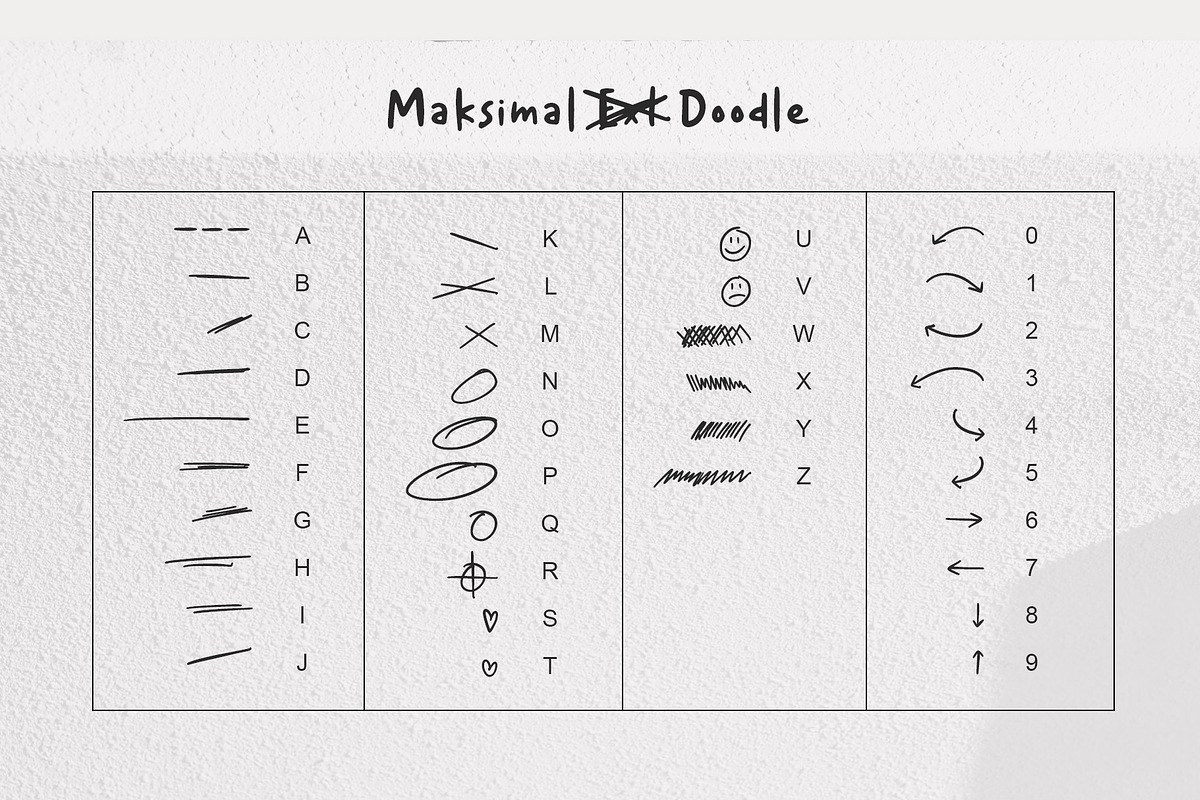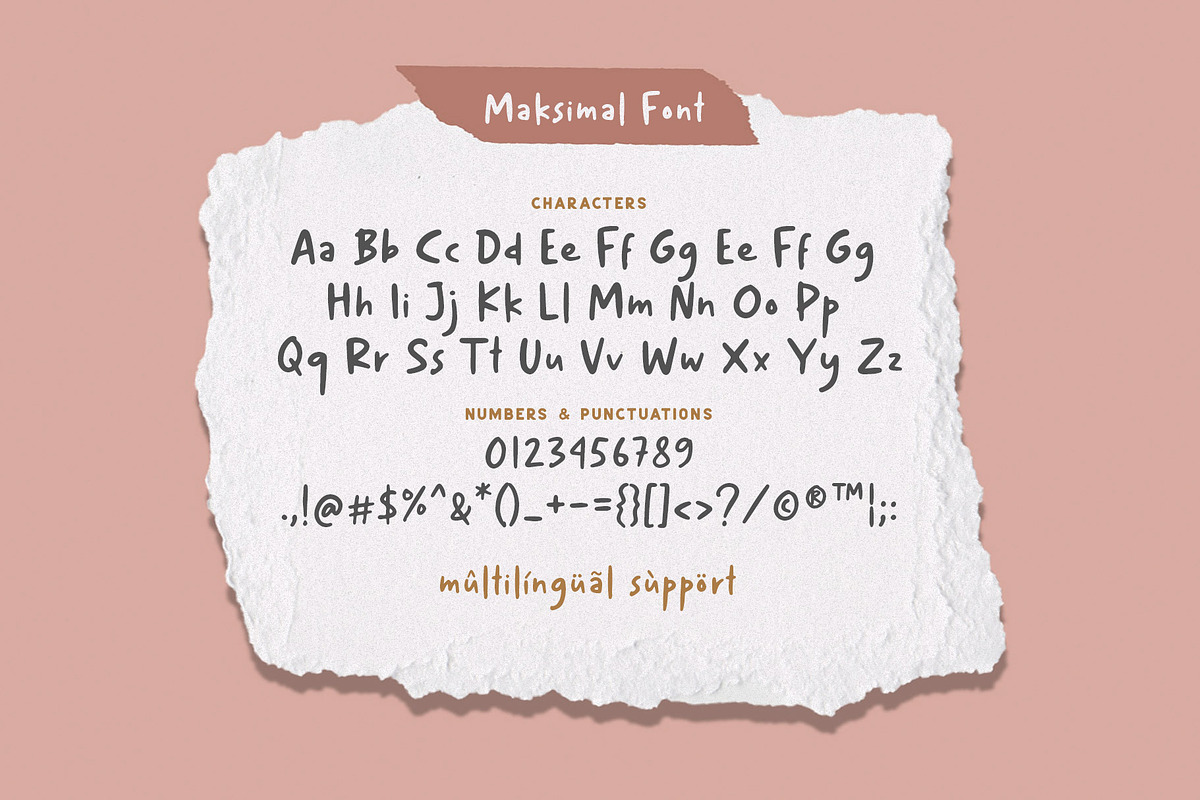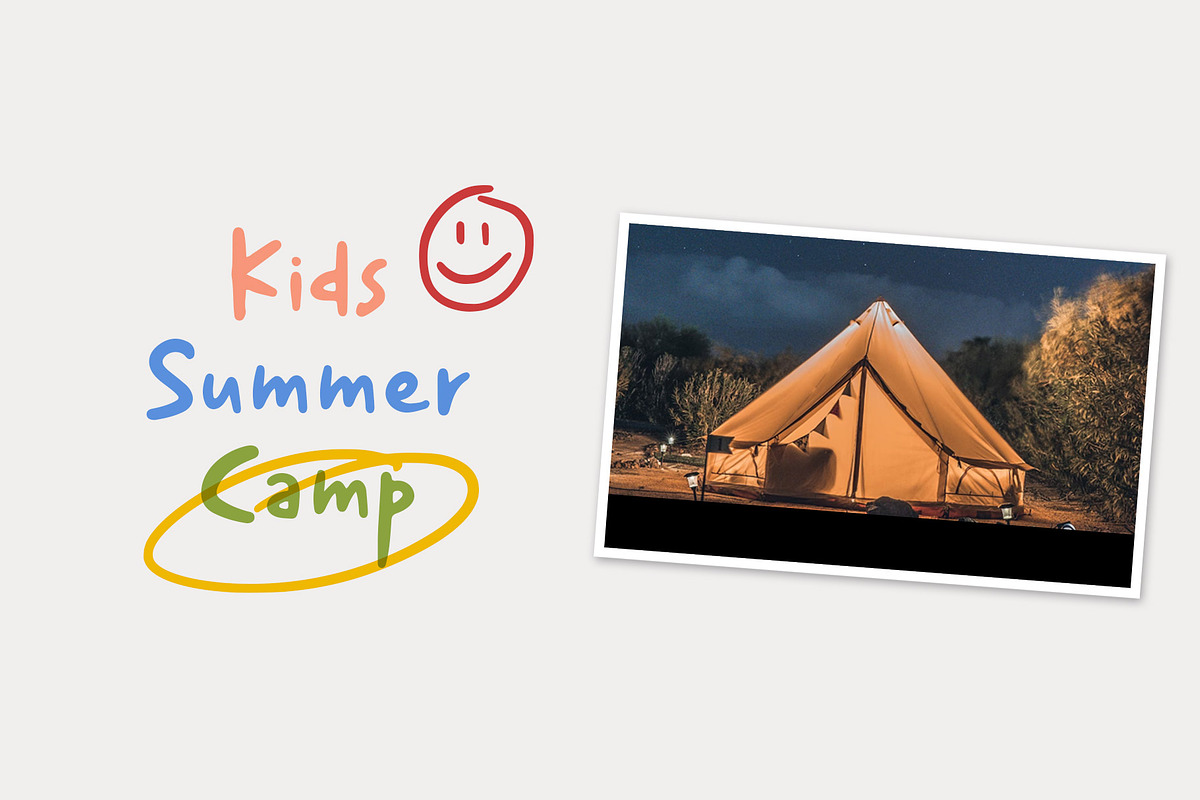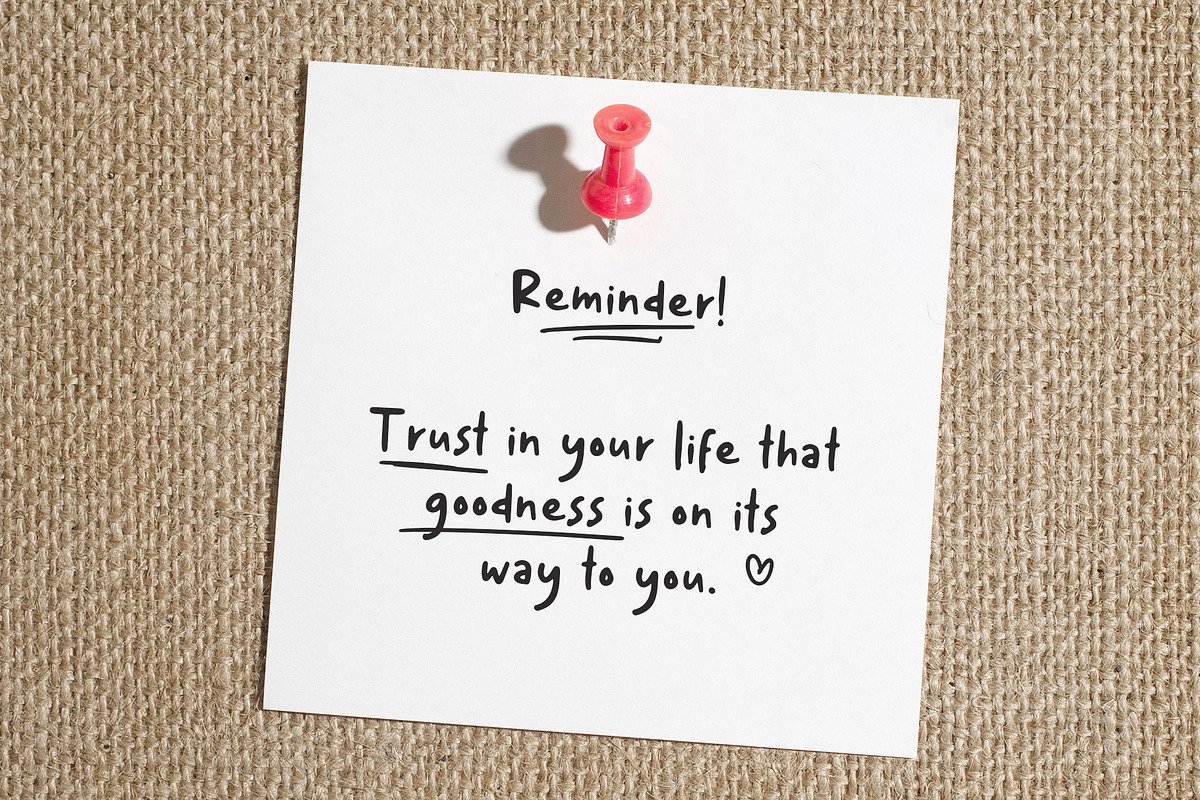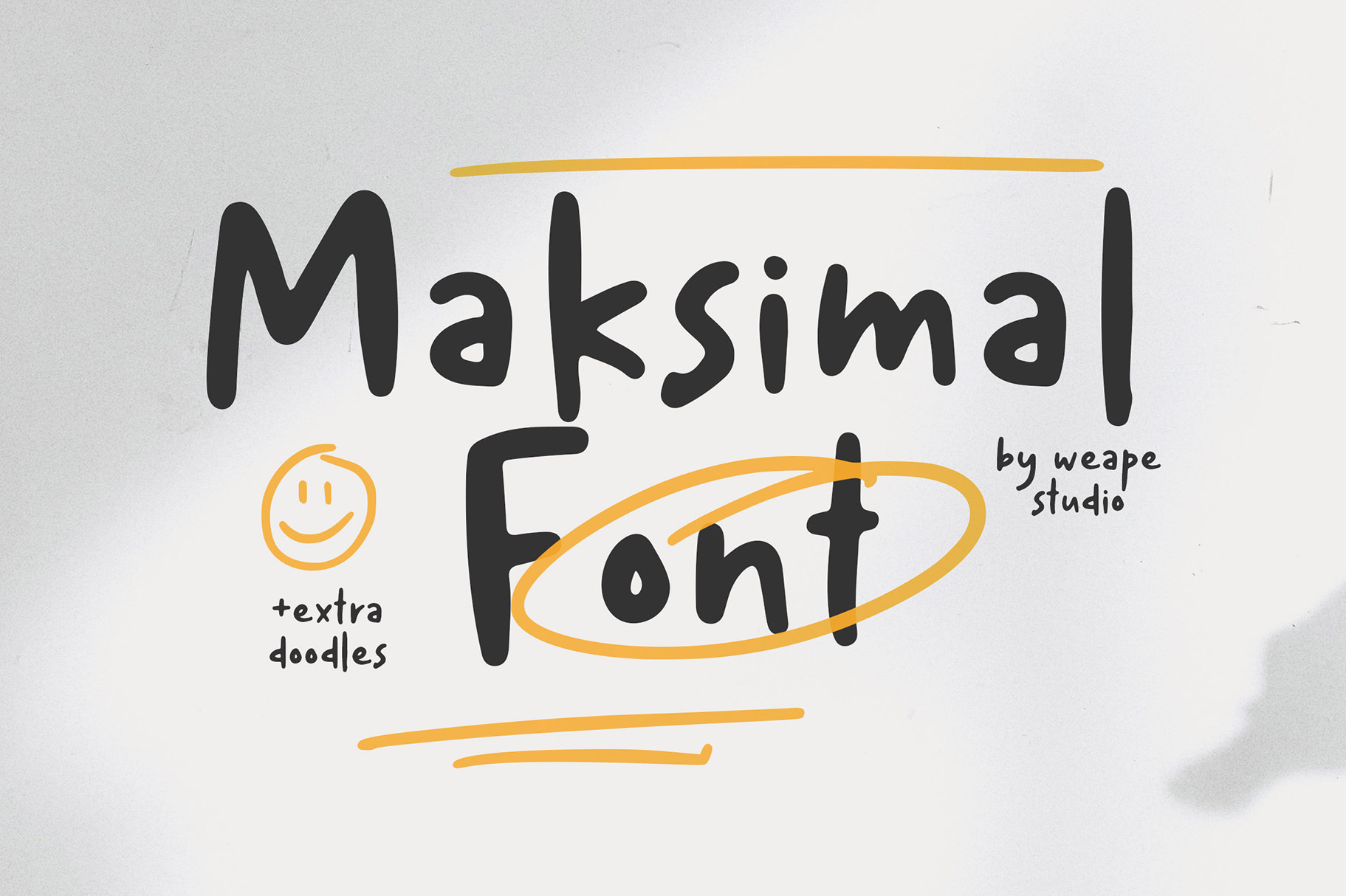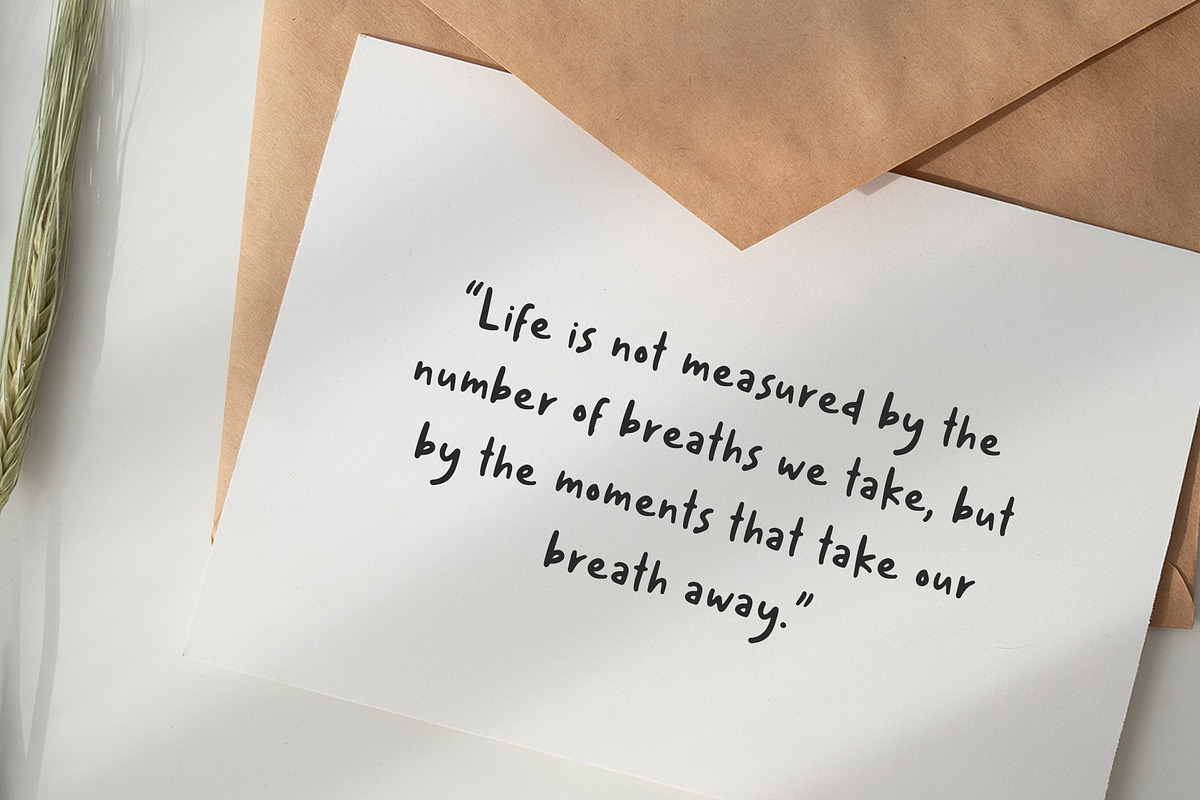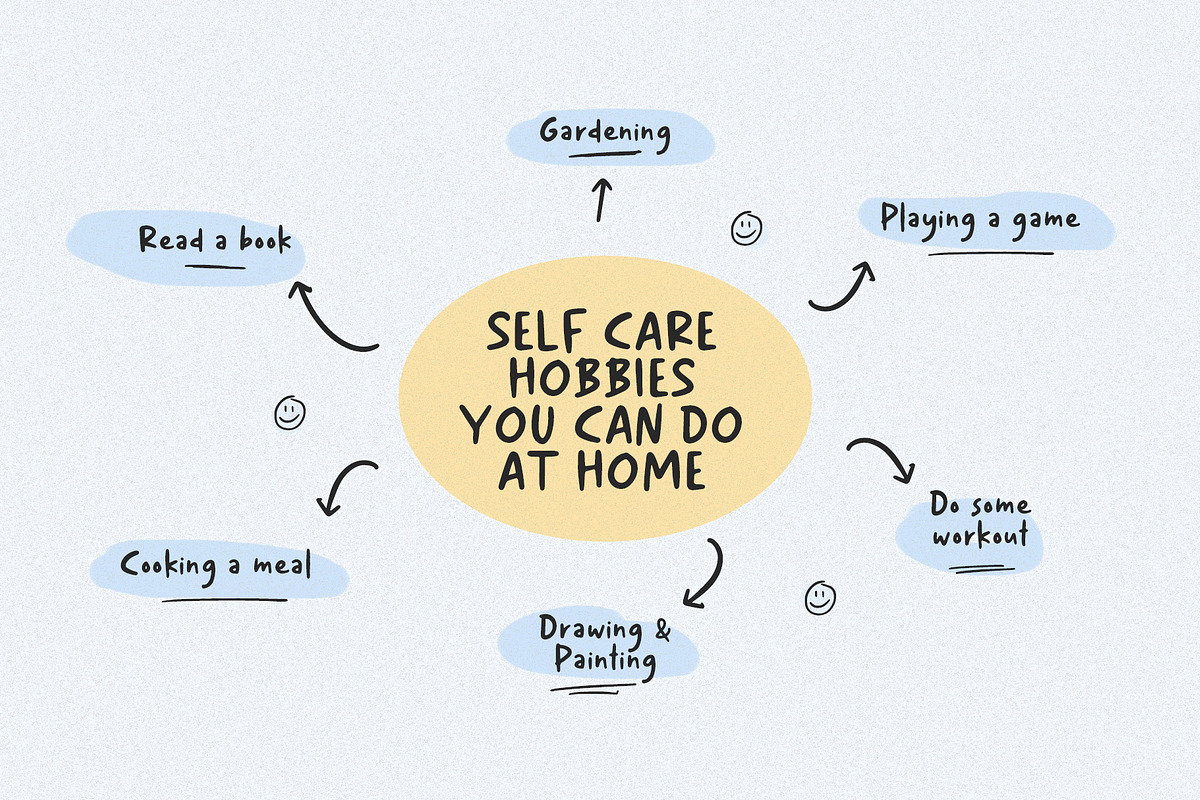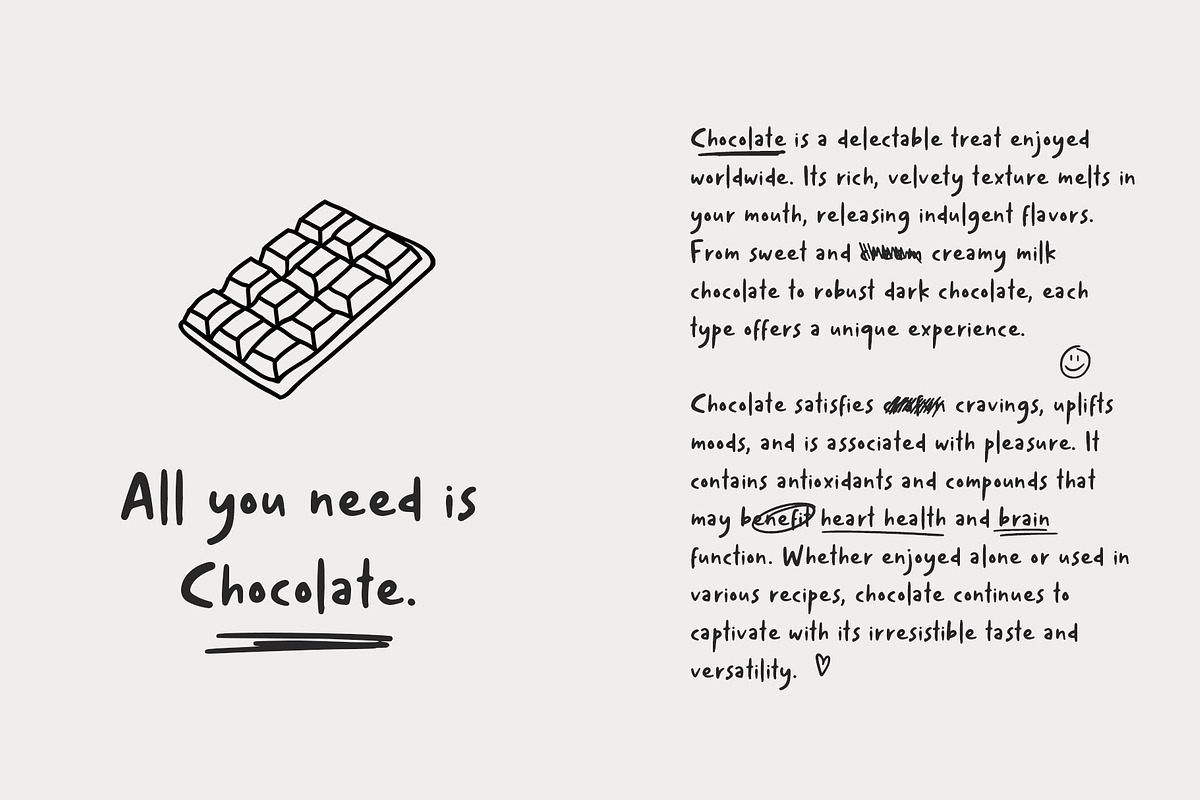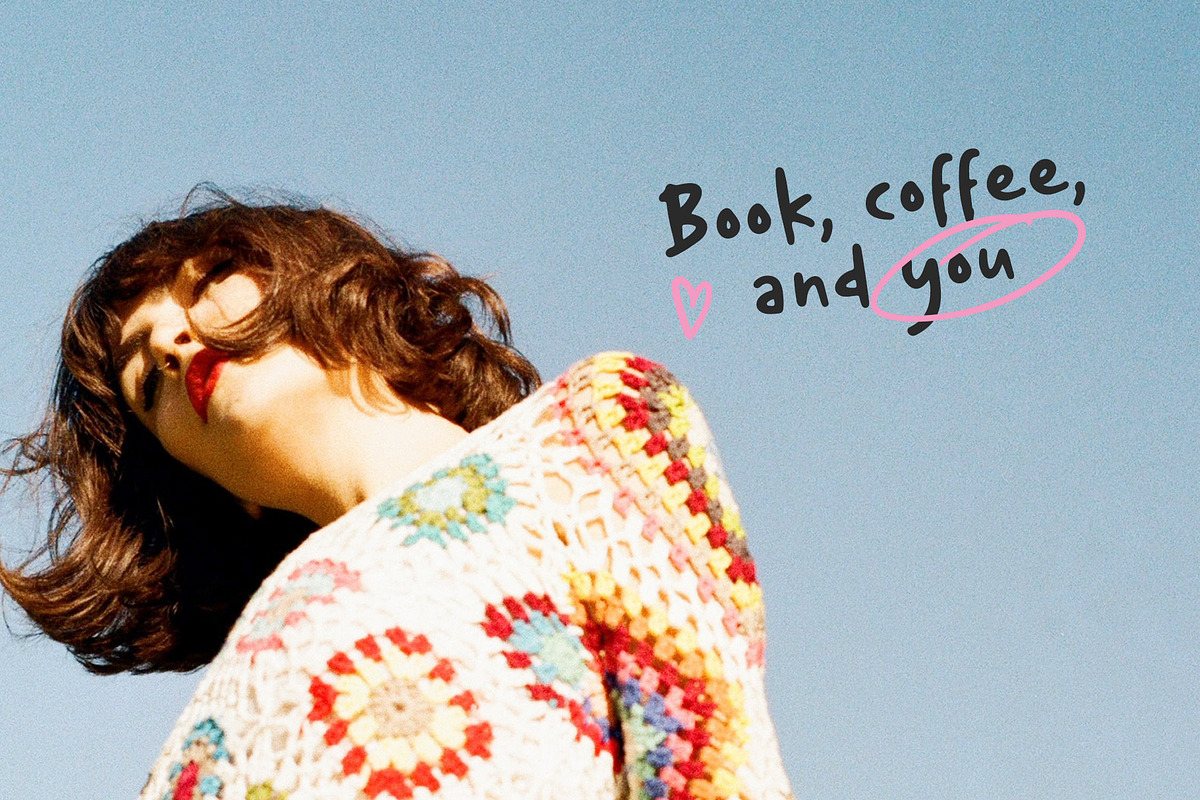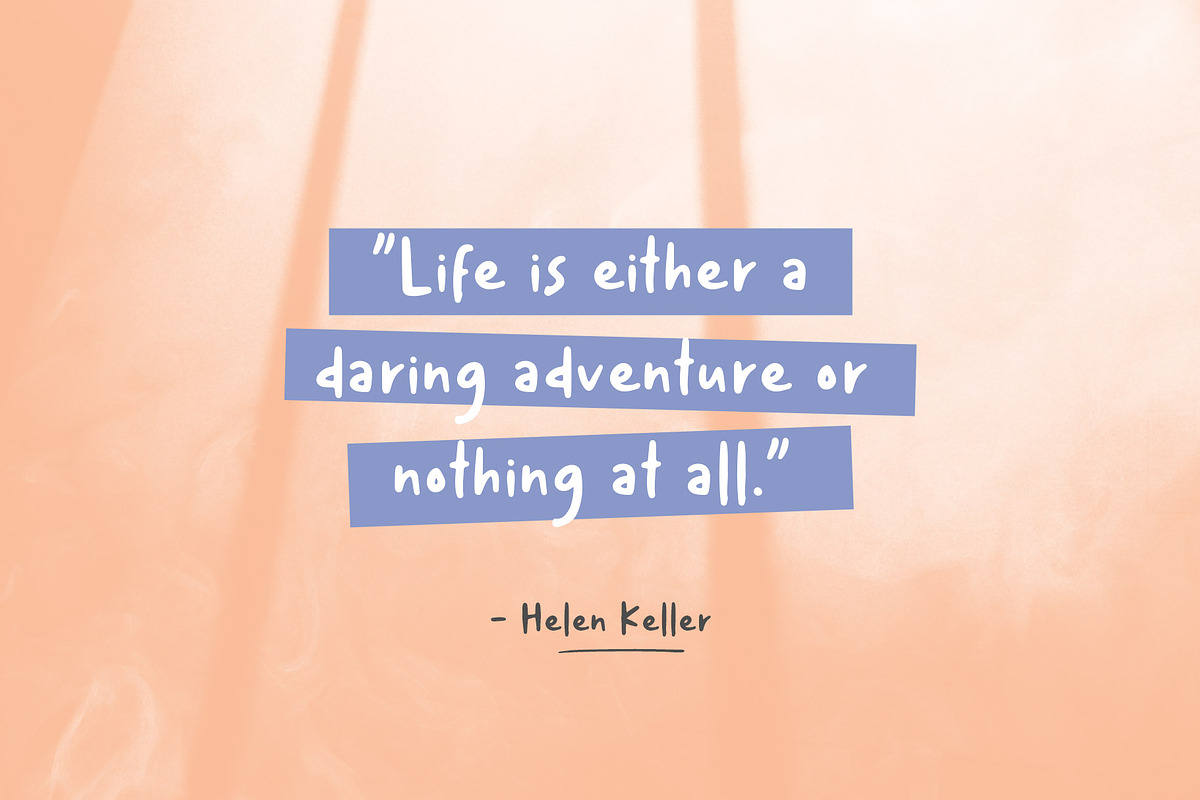
Maksimal Handwritten Font
Introducing our new hand-drawn font called Maksimal. The font with a unique doodle style that adds an authentic handwritten feel. This font captures the essence of genuine hand lettering, making it perfect for adding a personal touch to your designs. The intricate doodle elements bring a playful and creative vibe to your projects, making them stand out with their originality.
Whether you're designing invitations, greeting cards, or social media graphics, this font will elevate your work with its charming and whimsical character. Unlock the possibilities of authentic hand-drawn typography and let your creativity shine with our one-of-a-kind font.
The font is all capital letter characters, numerals, multilingual support, and a large range of punctuation. With OTF, TTF, WOFF, WOFF2 format.